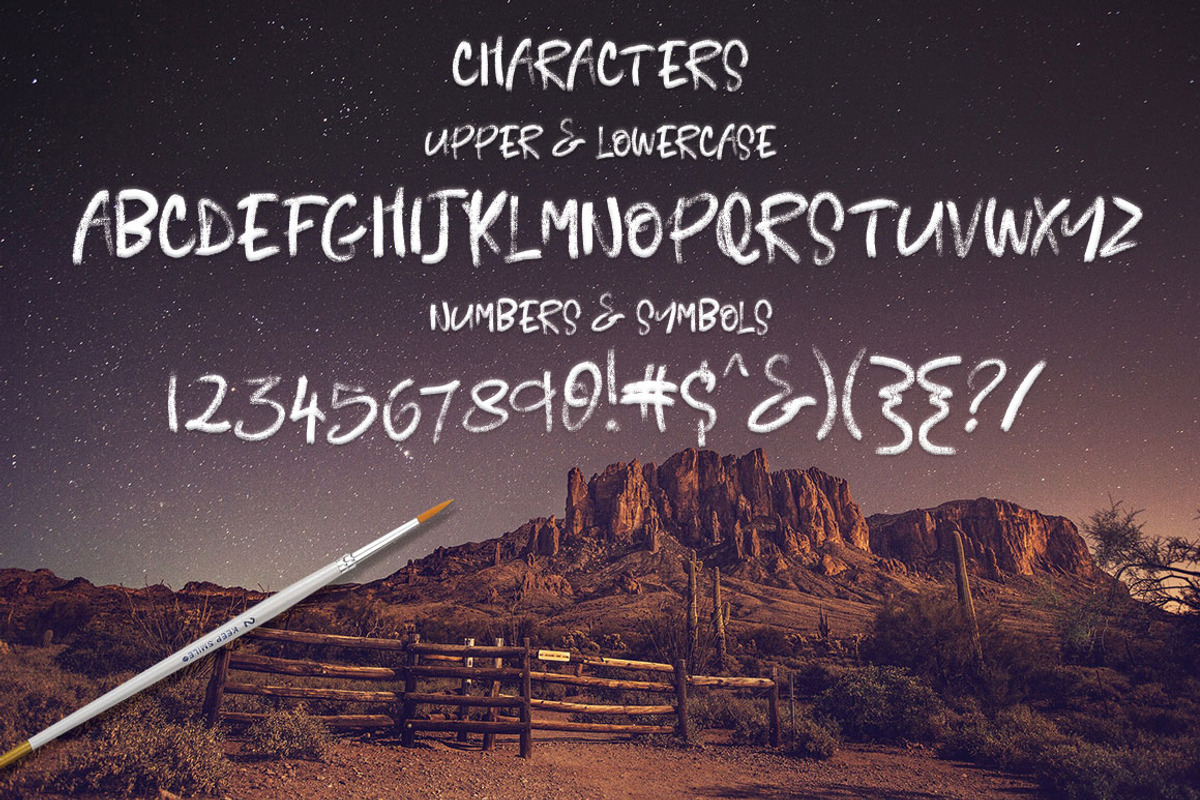
Seriously Rad Brush Font
Seriously Rad Brush Font by Creativeqube Design is a font selected for branding, posters, packaging, typography.
- Introducing Seriously Rad - a cool uppercase brush font loaded with texture.
Why Seriously Rad Brush Font is worth a look
Seriously Rad Brush Font by Creativeqube Design fits naturally into Branding, posters, packaging, typography.